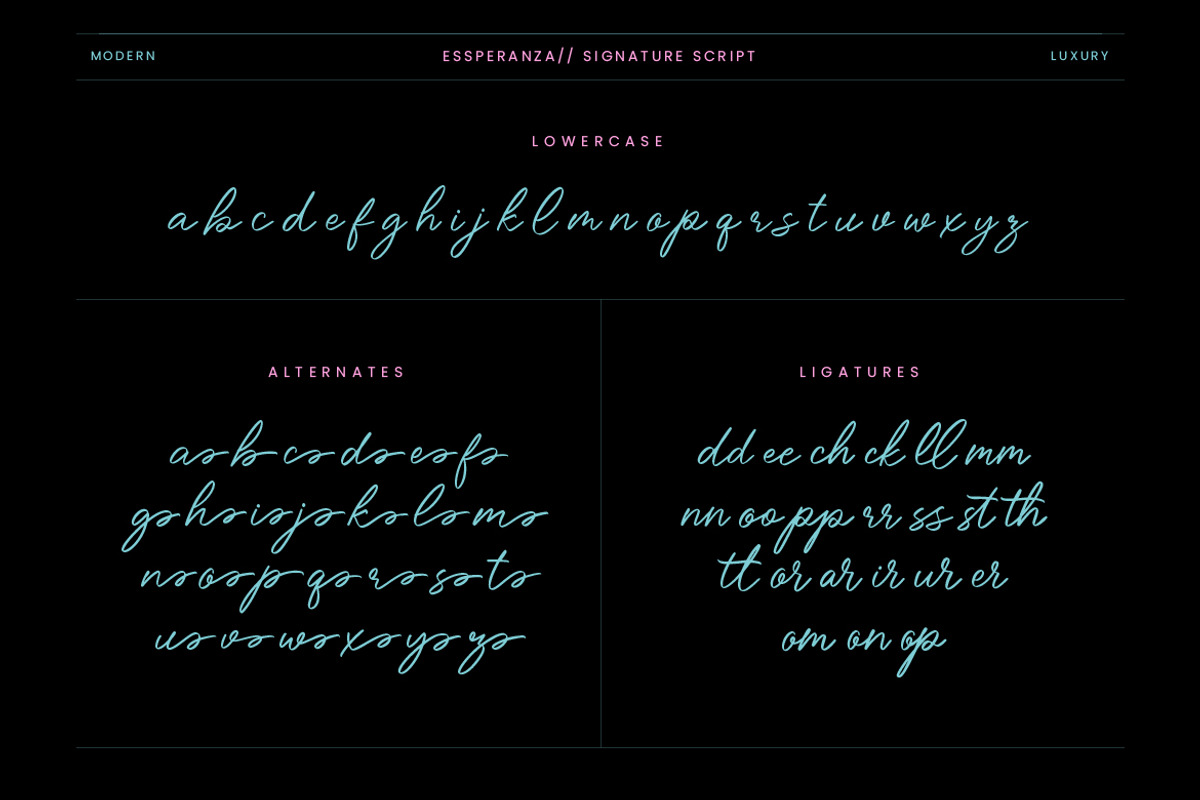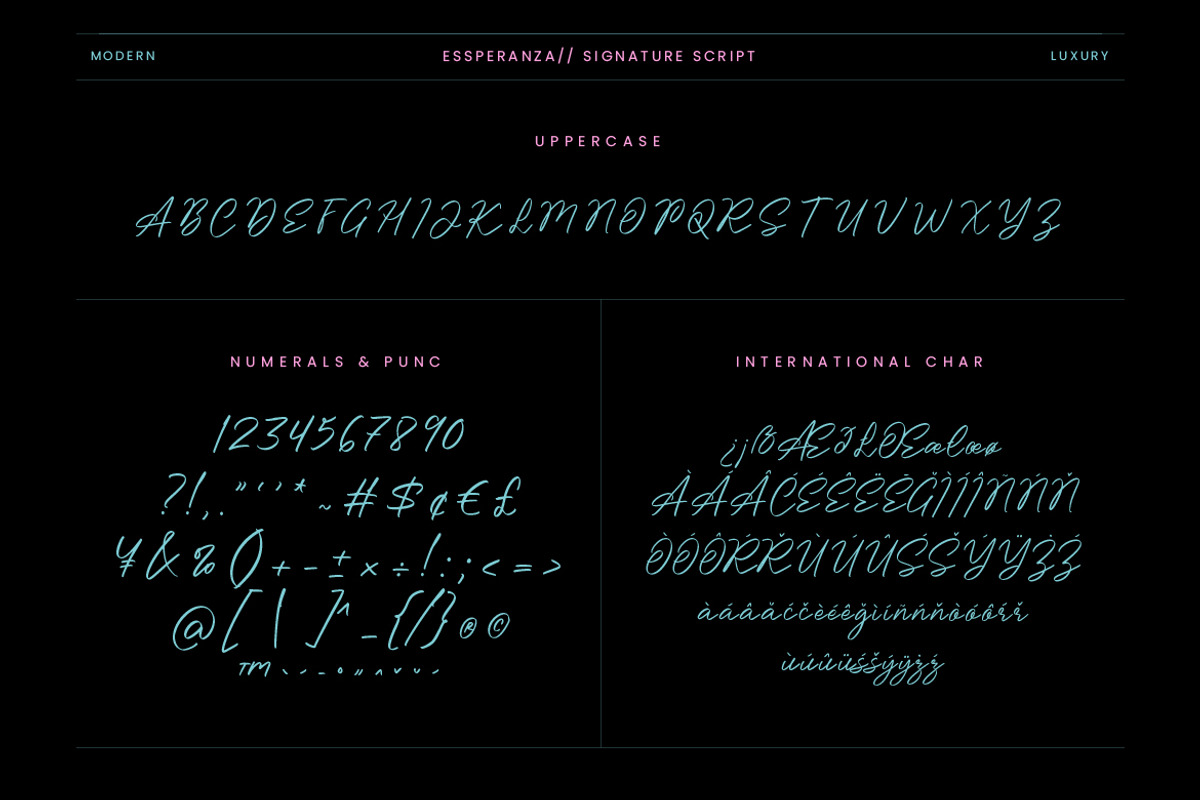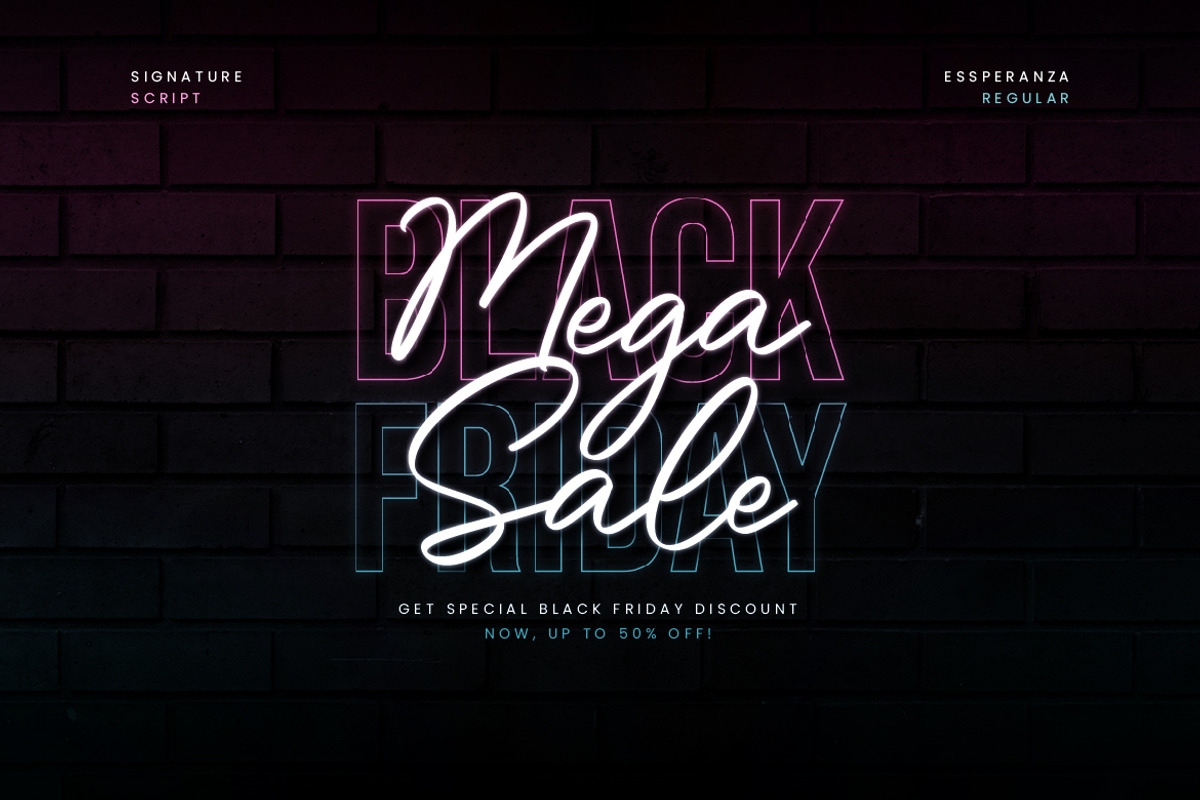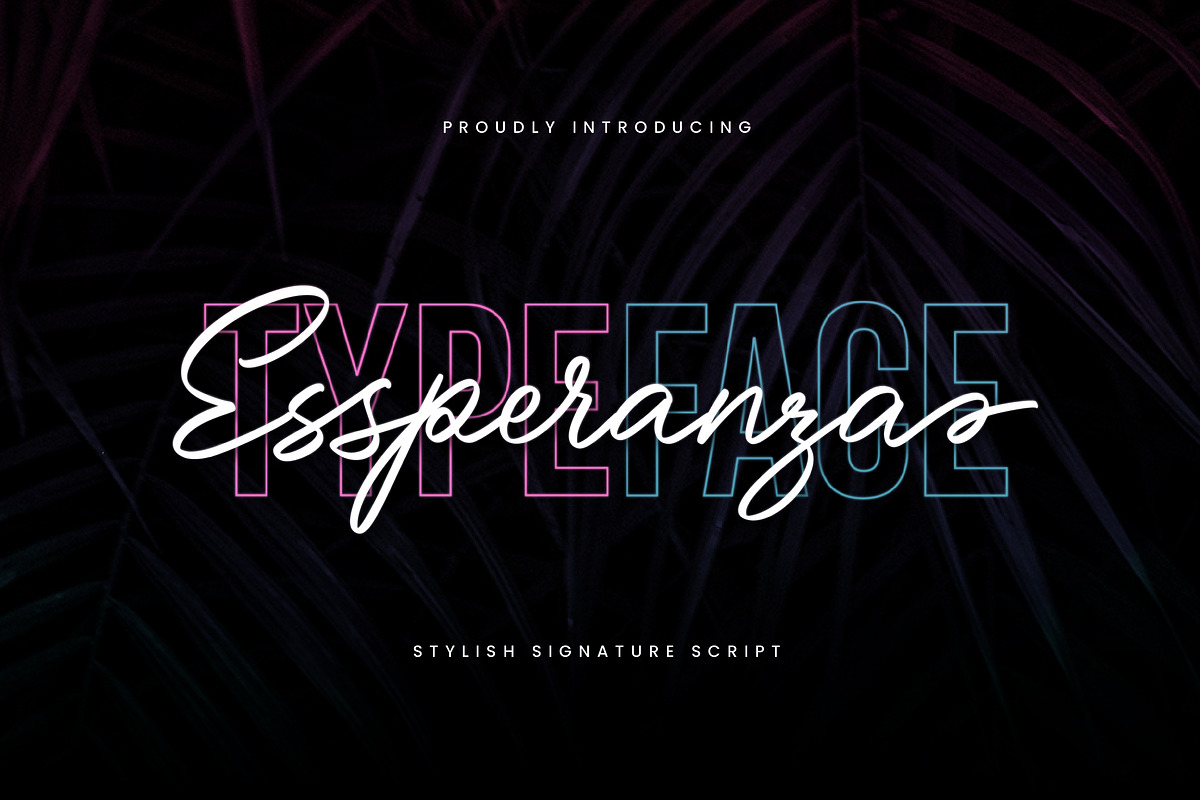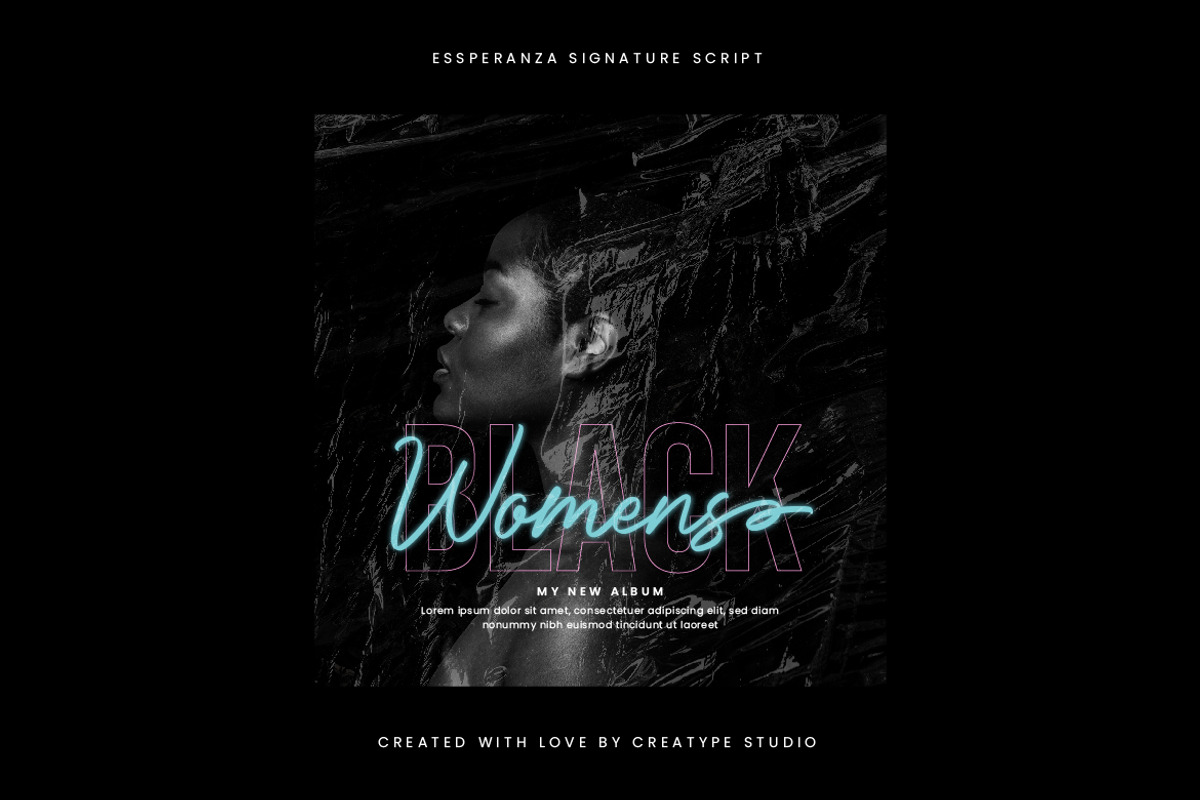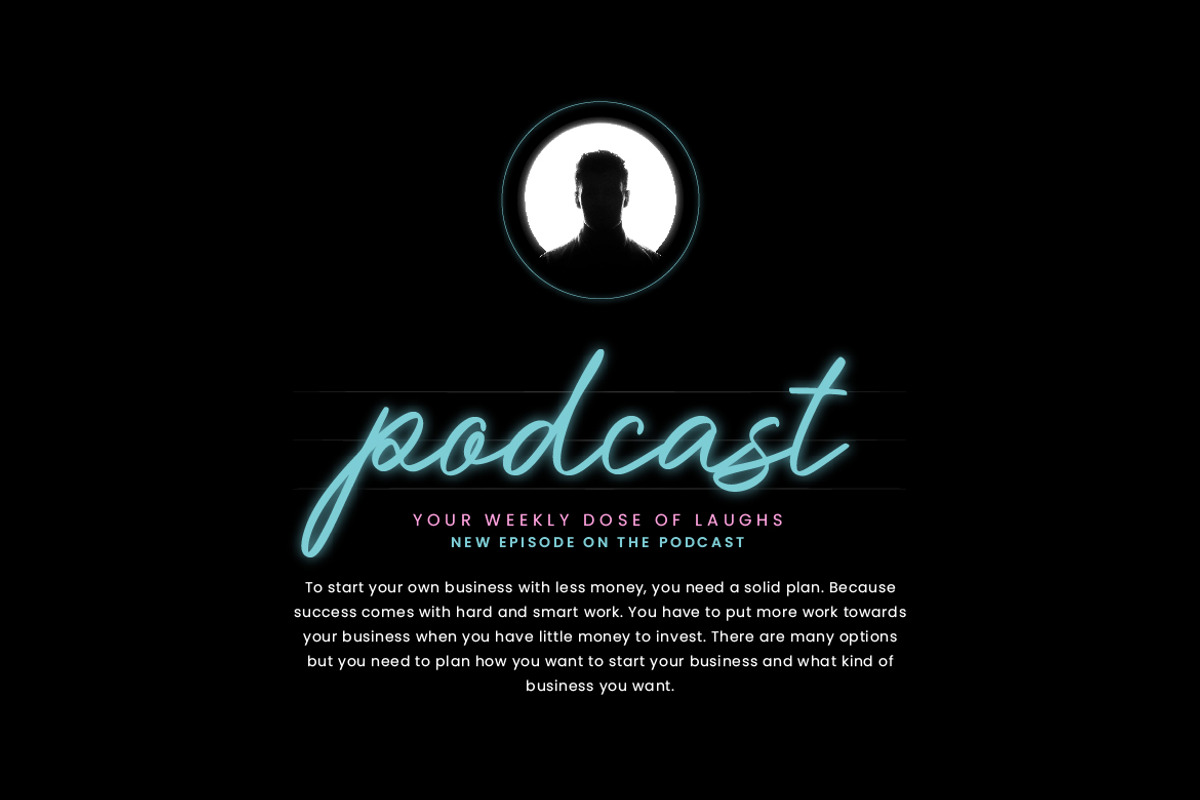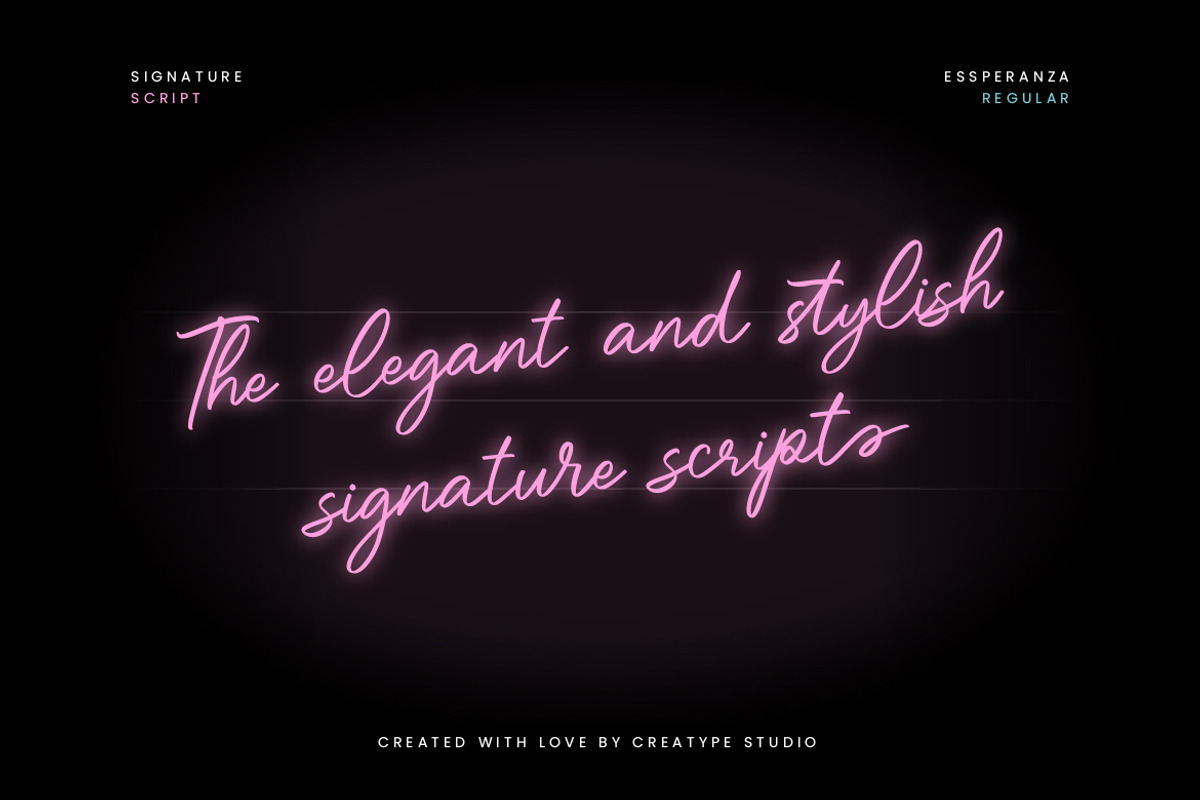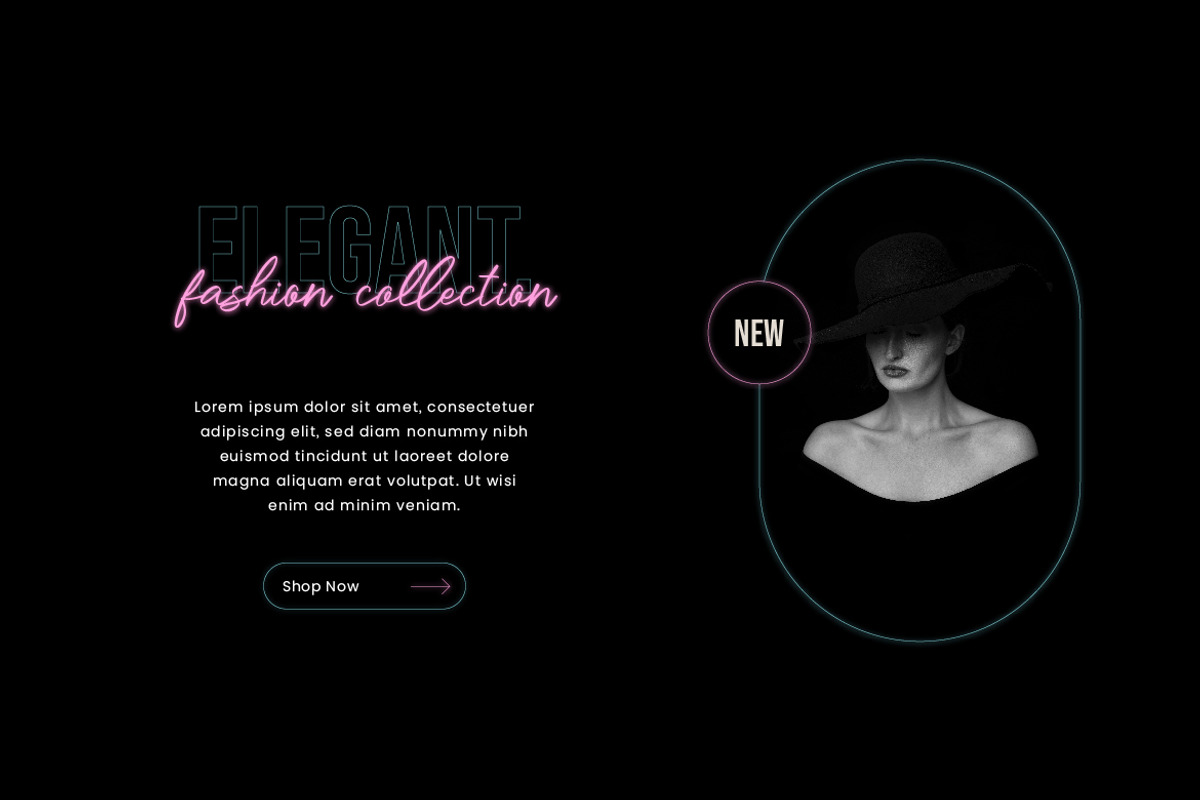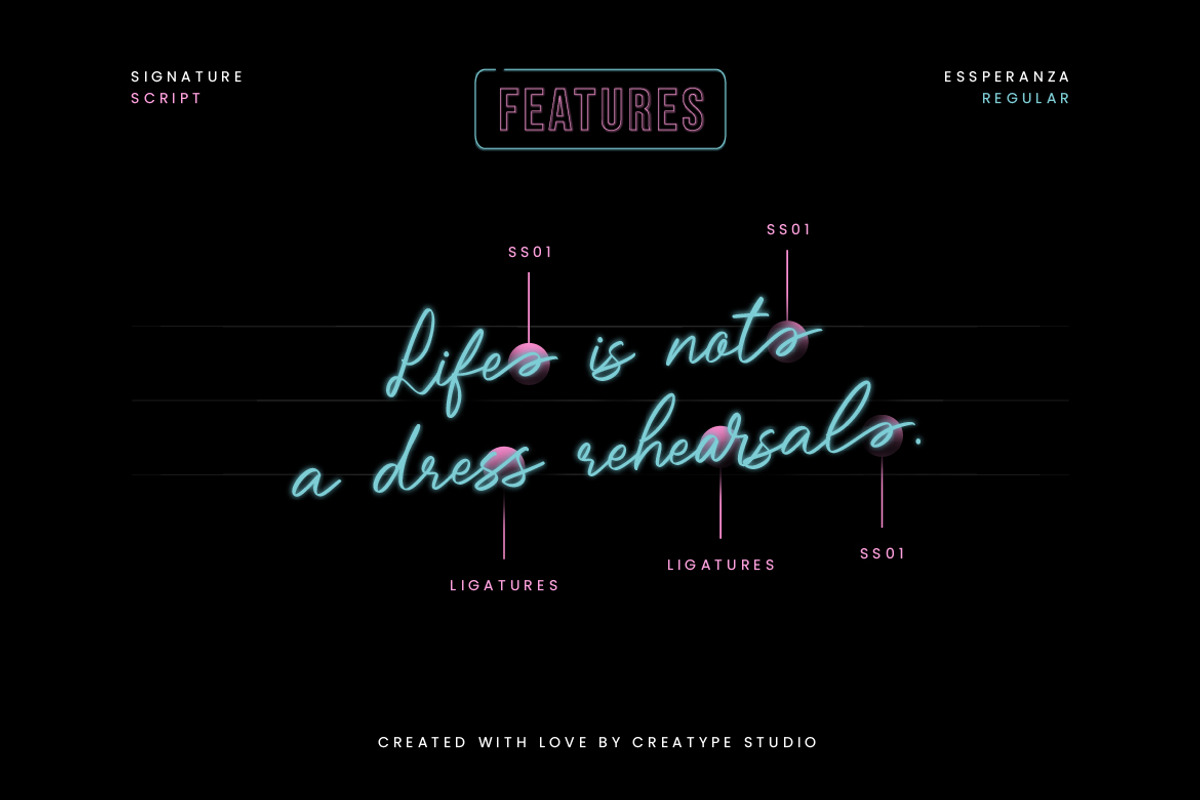
Essperanza Stylish Signature Script
Essperanza is a stylish signature script typeface - A new, fashionable and super cool handwritten script font that makes your product look even more attractive, of course. Essperanza is made as closely as possible with a handwritten script to make it look more natural and suitable for application in any media.
Essperanza is perfect for branding projects, logo, wedding designs, social media posts, advertisements, product packaging, product designs, label, photography, watermark, invitation, stationery and any projects that need handwriting taste.
- Ligature & Alternate
- Fonts include multilingual support for; Afrikaans, Albanian, Czech, Danish, Dutch, English, Estonian, Finnish, French, German, Hungarian, Italian, Latvian, Lithuanian, Norwegian, Polish, Portuguese, Slovak, Slovenian, Spanish, Swedish.